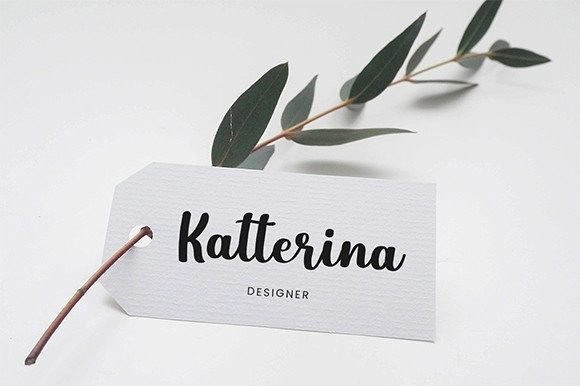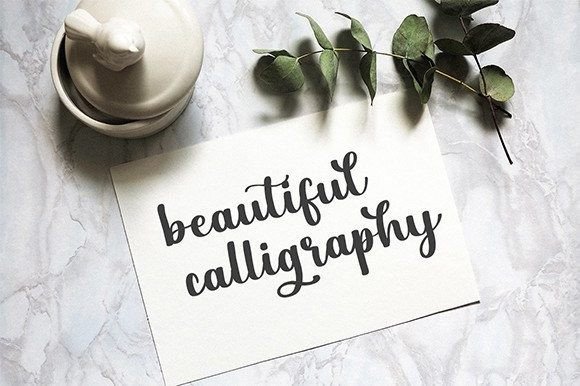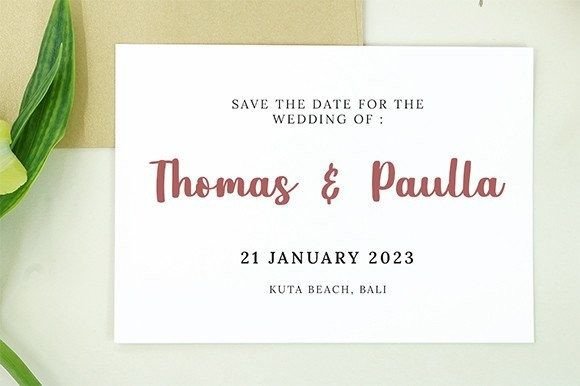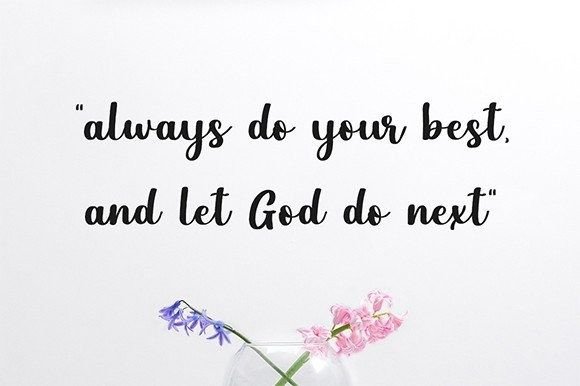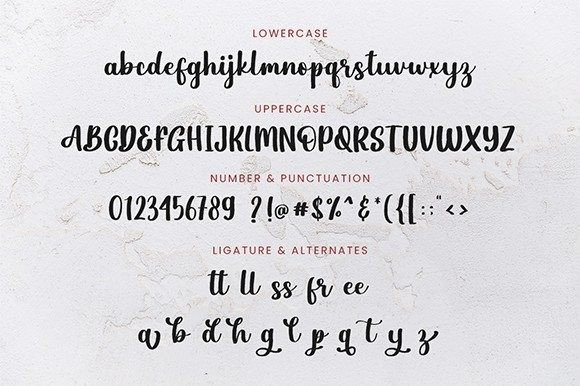
About Sunlight Font
“Sunlight” is a delightful and contemporary calligraphy font with a charming and elegant appeal. Its sweet demeanor and modern design make it a standout choice for a variety of creative projects. The font’s distinct and well-rounded letters showcase meticulous craftsmanship, transforming it into a true masterpiece of typographic artistry.
This font’s versatility knows no bounds, making it a perfect fit for a wide range of applications. Whether you’re working on branding projects, fashion designs, wedding materials, social media graphics, logotypes, magazines, quotes, lettering, watermarks, or invitations, “Sunlight” adds a touch of sophistication and beauty to every piece.
In branding, “Sunlight” can create a memorable and visually appealing representation of your brand identity. Its graceful strokes and elegant curves add a touch of class, making your brand stand out among competitors. For fashion designs, the font enhances the overall aesthetic, giving your creations a sense of style and refinement.
In wedding materials and invitations, “Sunlight” lends a romantic and personalized feel, setting the tone for a special celebration. On social media platforms, this font captures attention and adds a touch of glamour to your posts and advertisements. In magazines and quotes, it elevates the reading experience, making the text visually pleasing and engaging.
Moreover, “Sunlight” can be used for lettering and watermarks, adding a signature touch to your creations. Its beautiful feel and well-crafted letters ensure that your designs are infused with elegance and charm, leaving a lasting impression on your audience.
Embrace the sweetness and modernity of “Sunlight” in your creative projects. Let its distinct and well-rounded letters enhance your designs, turning them into visually captivating pieces of art. Whether you’re creating a brand, planning a wedding, or designing social media content, “Sunlight” is the perfect choice to add a touch of sophistication and beauty to your work.